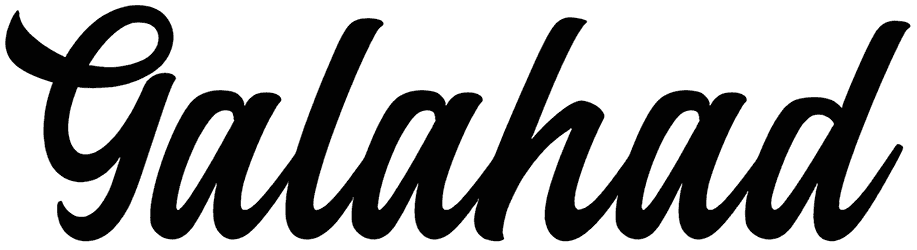
Galahad Font
Designed byRamli Setiadi
Wanna try something unique for your words? Take a look at today’s font! All the characters in the Galahad are designed with a bold handwritten style and a cursive effect that gives a soft and approachable sense to your presentation.
You can use this font for decorative purposes and get creative with your looks. This script font is popular in summer flyers, and in this version, you can go crazy with all the bright colors to make it more eye-catching.